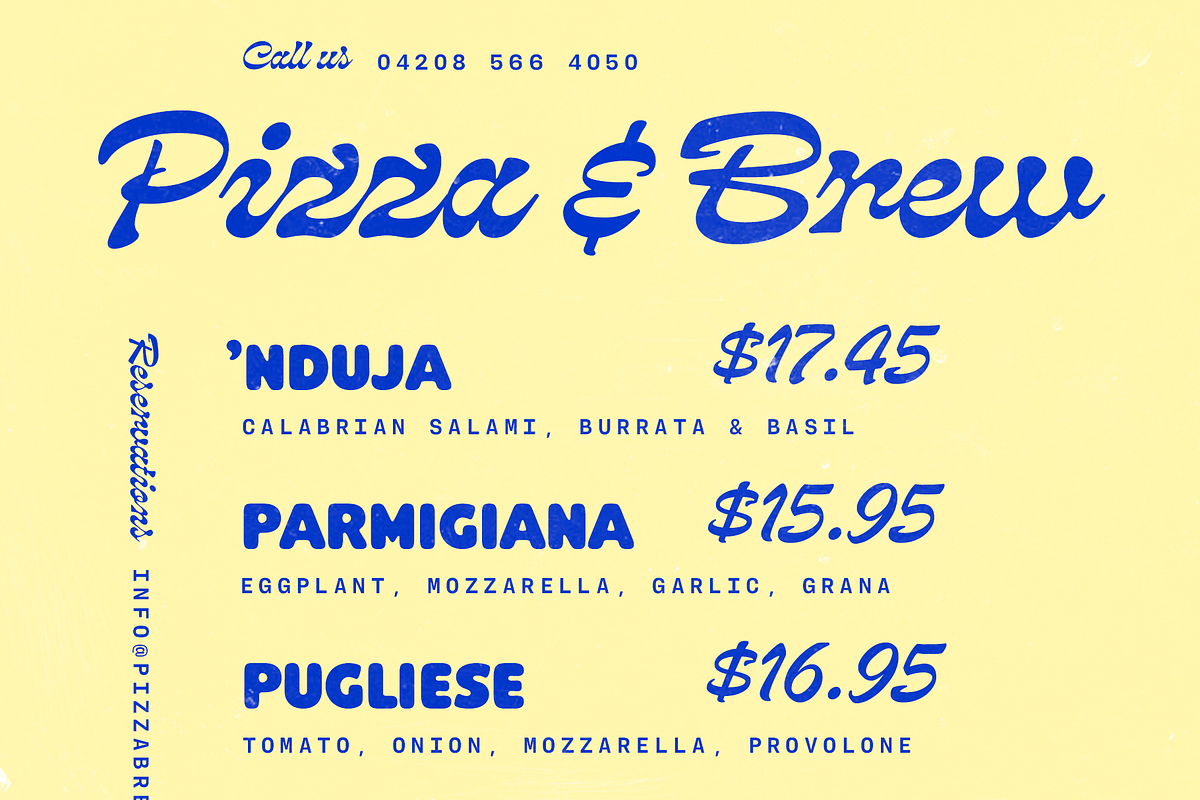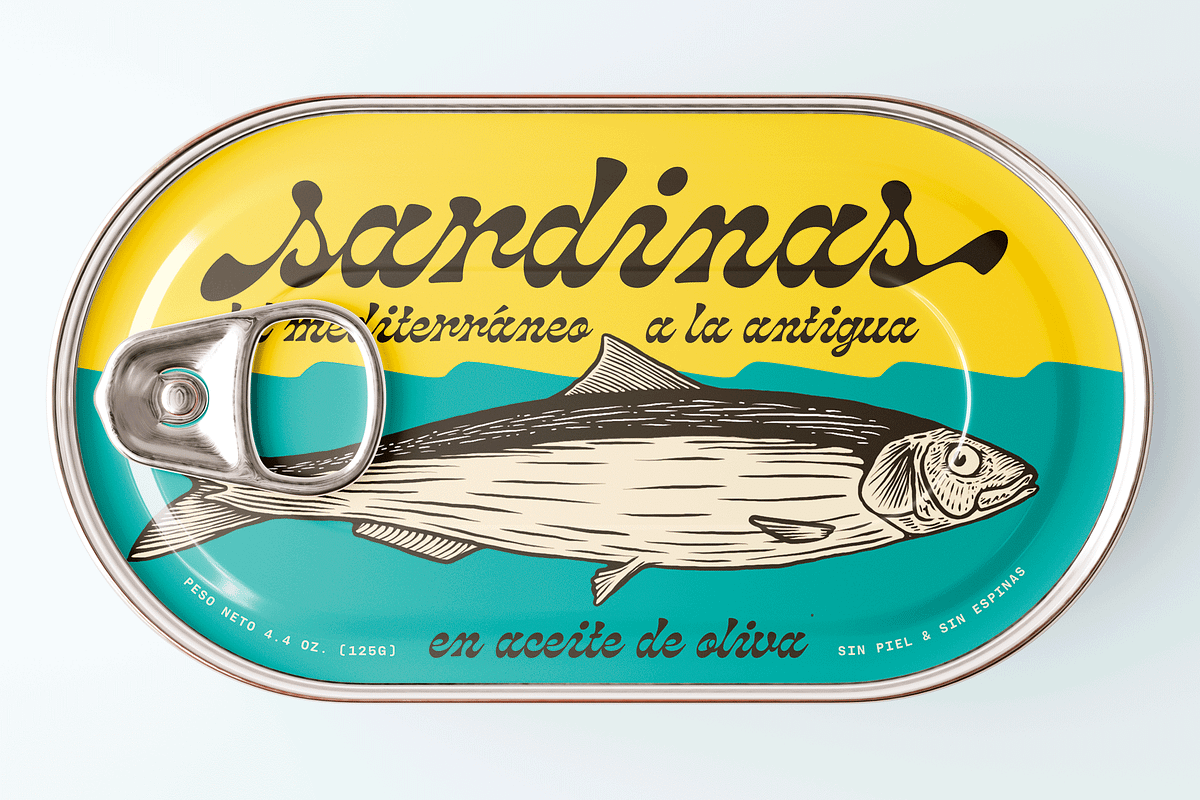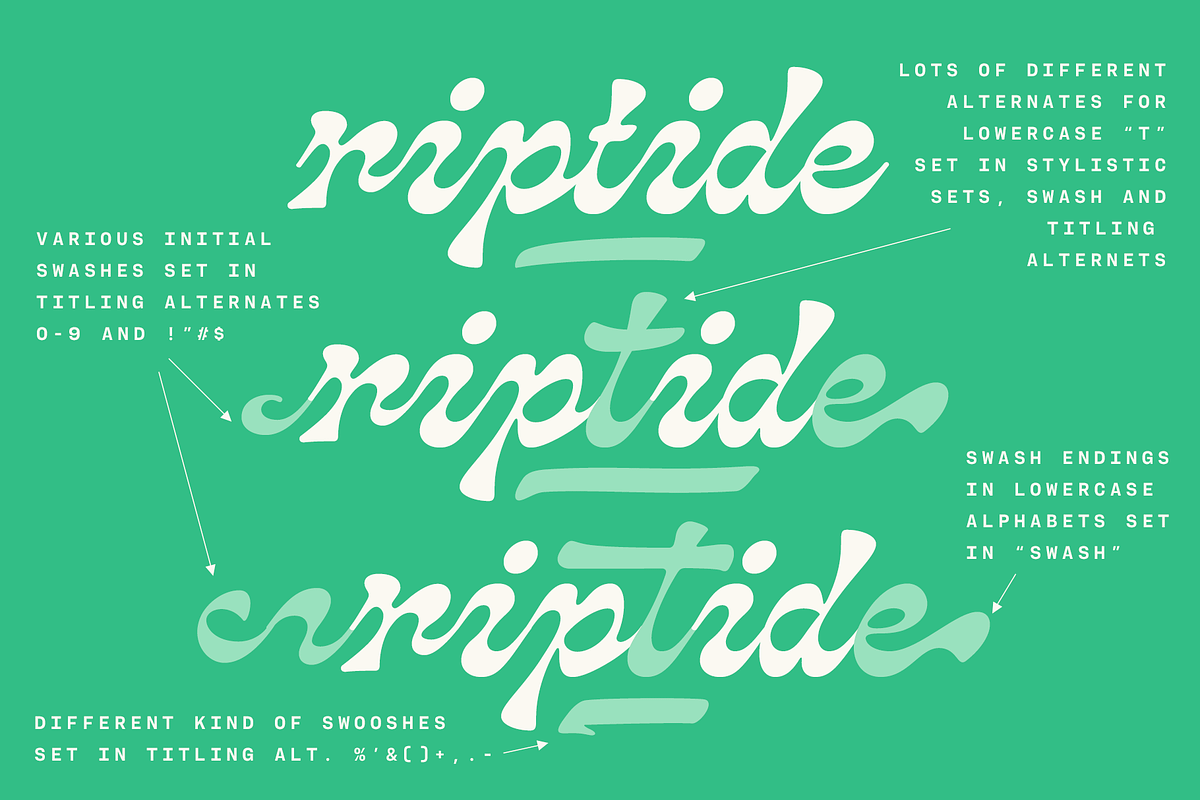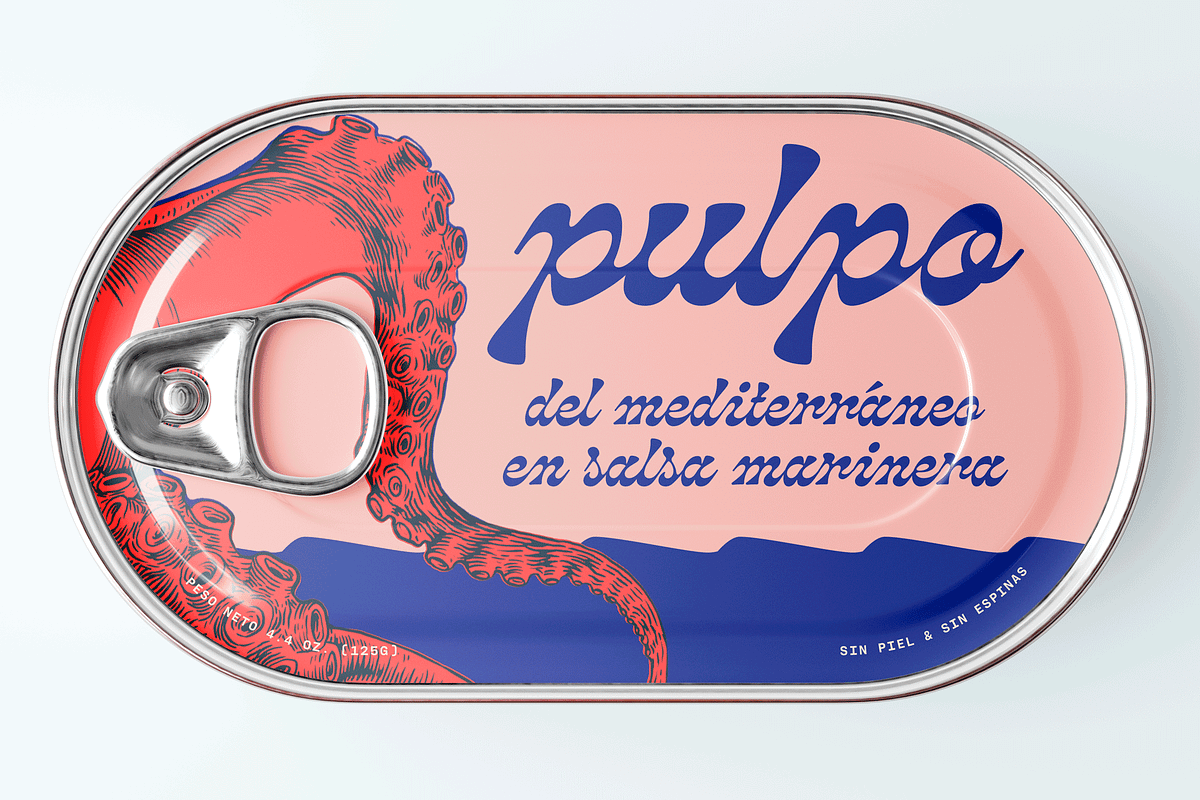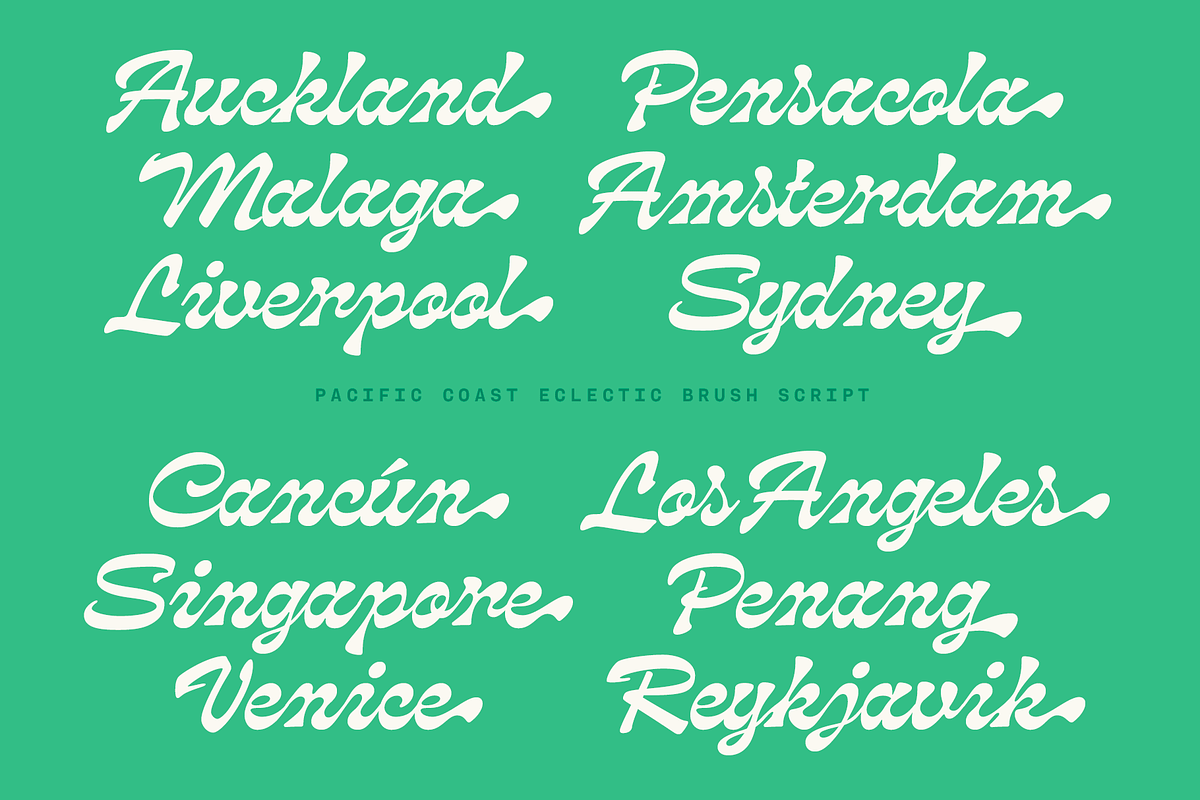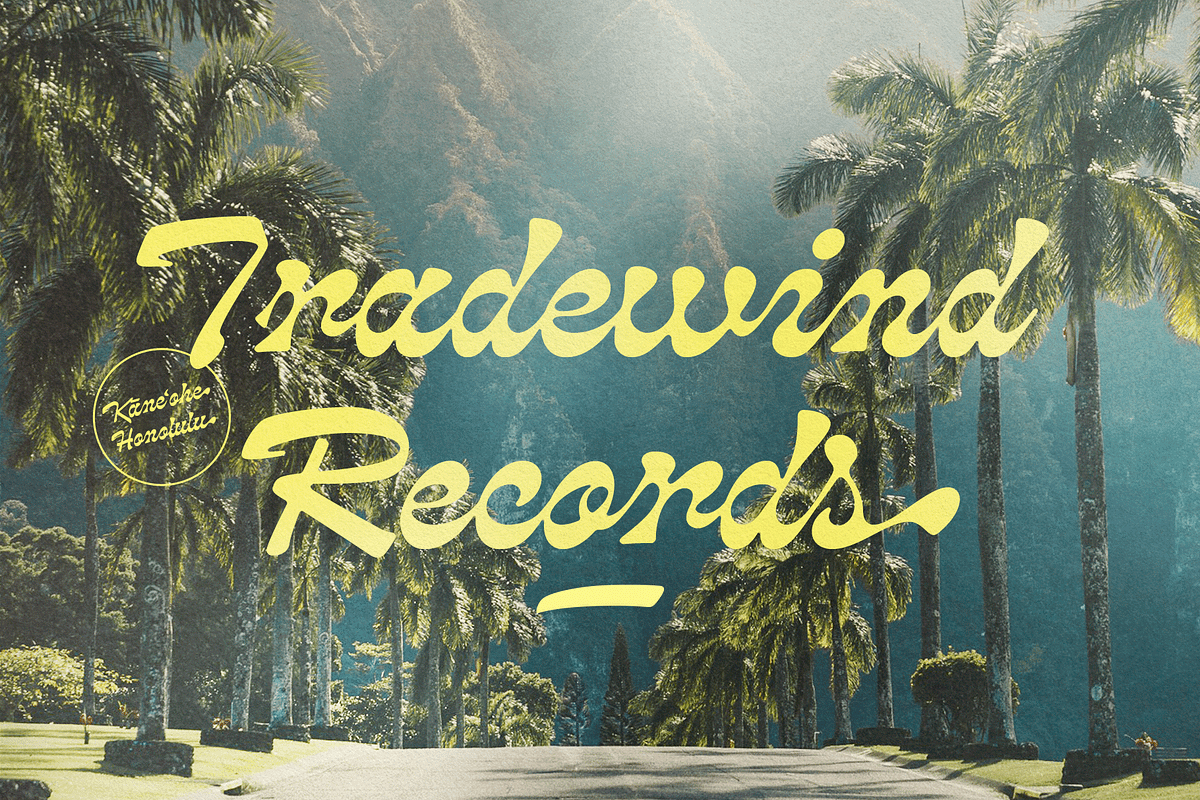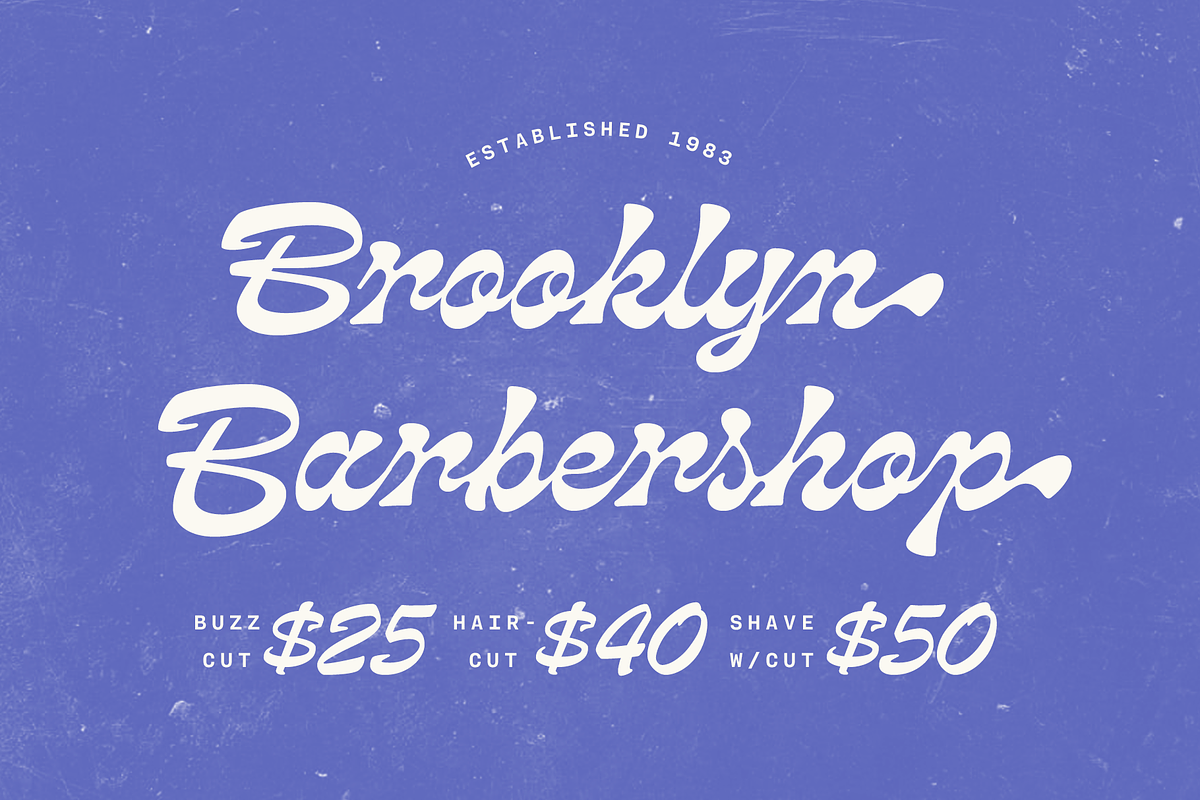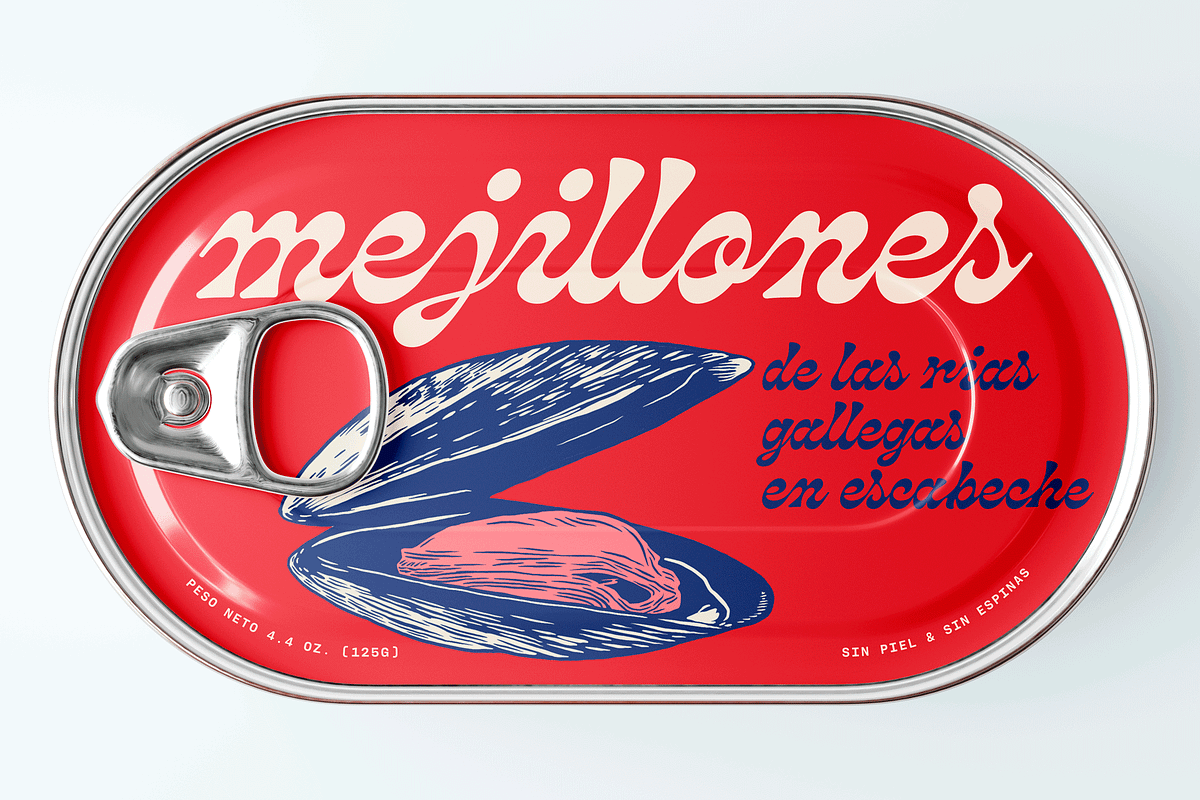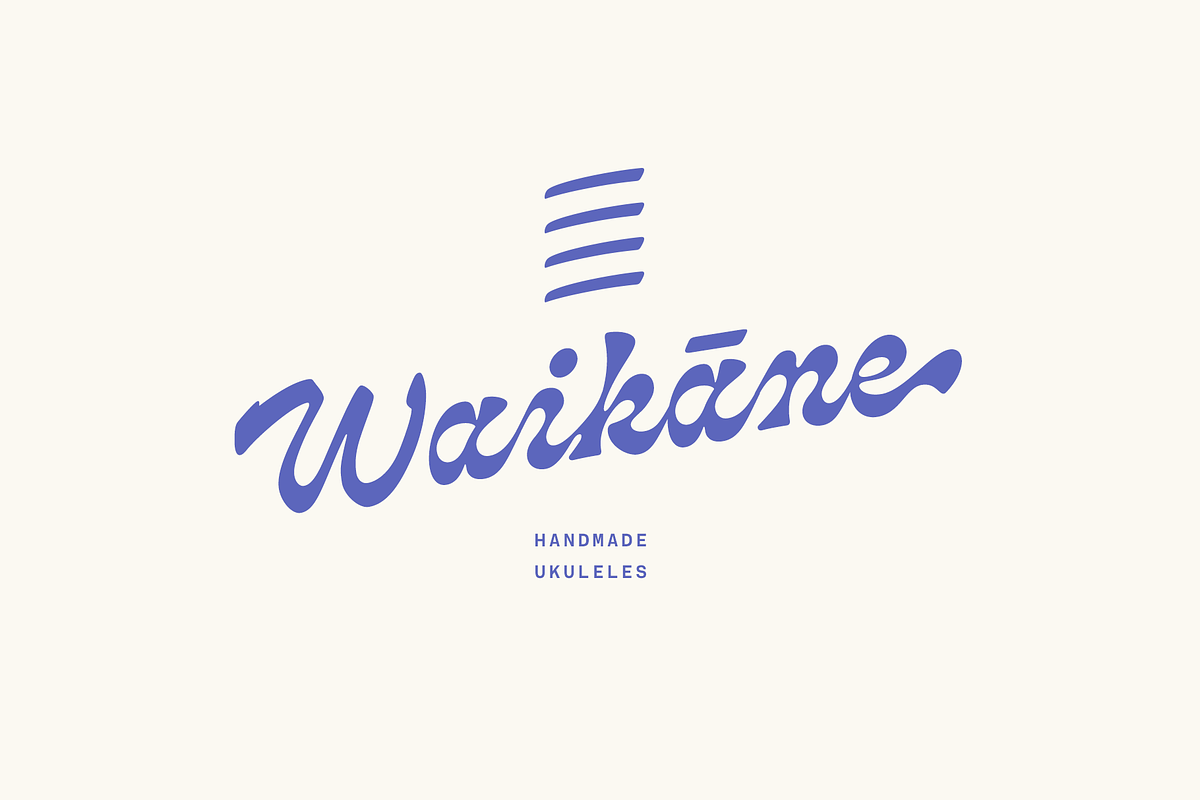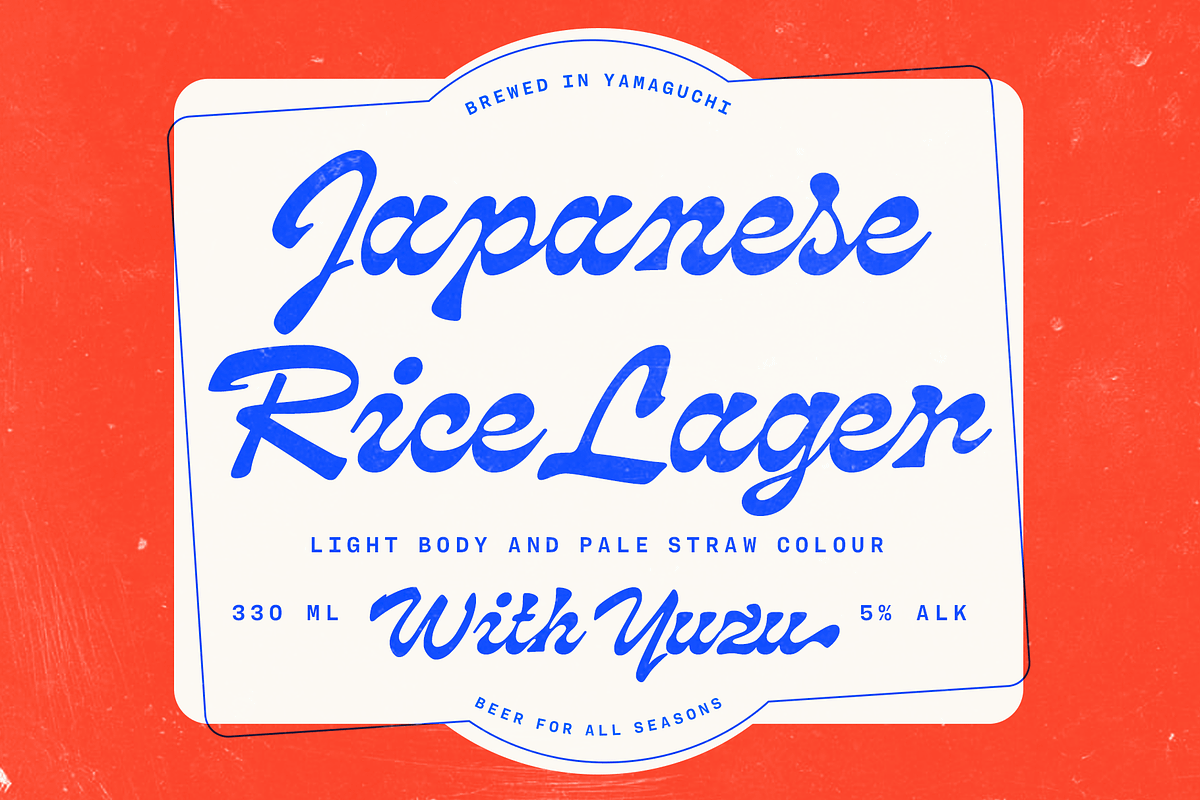
Pacific Coast Retro Script Font
Pacific Coast is a reverse-contrast brush script with a mellow and smooth summer vibe. Feel the Pacific waves and warm breeze as you type with Pacific Coast. It's a distinctive and stylish choice for packaging, labels, posters, and headlines. Pacific Coast is equipped with several OpenType features. Contextual Alternates help maintain smooth connections between certain character combinations and are automatically activated. Additionally, it offers a wide range of Swash, Stylistic, and Titling Alternates for alternative uppercase characters and ampersand. There are also Swash terminals for every lowercase character. Moreover, there is a set of initial ornament shapes that can be combined with lowercase i, j, m, n, p, r, s, x, and z. These shapes are set in Titling Alternates for 0-9, along with a set of ornamental swooshes in Titling Alternates for percent, ampersand, double quotations, parentheses, asterisk, plus, comma, period, and hyphen. These shapes complement the designs made with Pacific Coast. Furthermore, Pacific Coast offers a wide selection of lowercase t set in Stylistic Sets 1-9 and in Swash, Stylistic, and Titling Alternates.